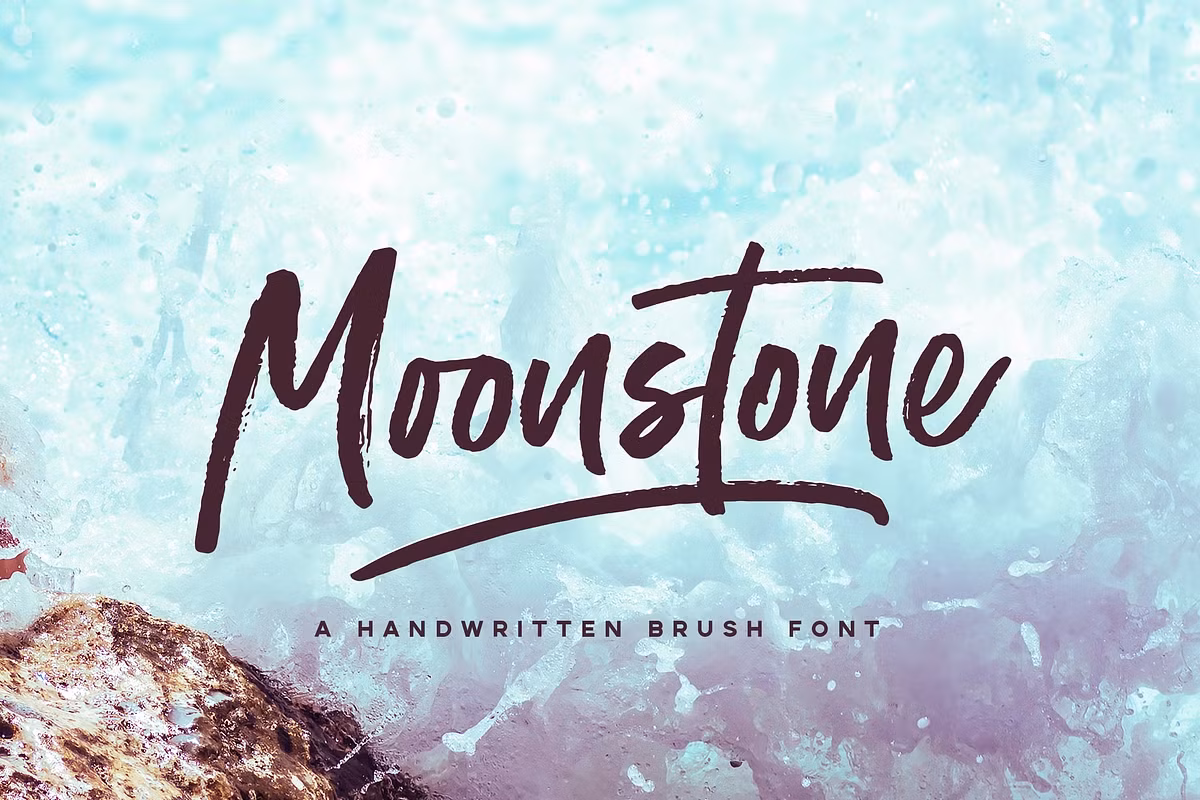
Moonstone Brush Font Free Download is a dynamic and expressive handwritten brush font designed to add a personal, artistic touch to your designs. With its bold strokes and fluid texture, this font is perfect for creating creative logos, posters, invitations, quotes, and social media graphics that need a strong, handmade aesthetic.
The brush-style strokes give it a raw, authentic feel, making it ideal for projects that need a bit of character and flair. Whether you're working on an artistic campaign, a casual brand identity, or a unique product label, Moonstone Brush Font brings energy and personality to your typography.